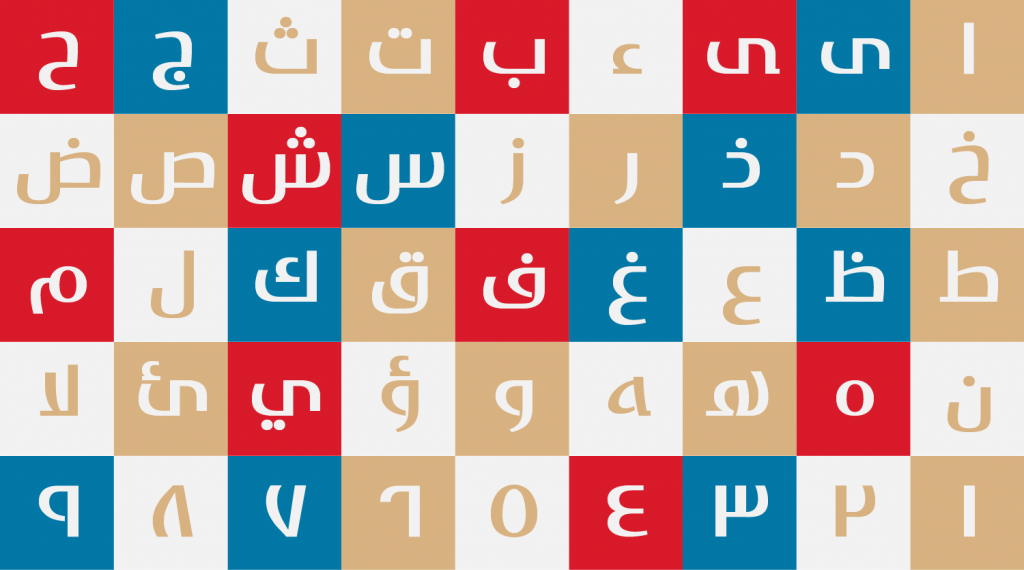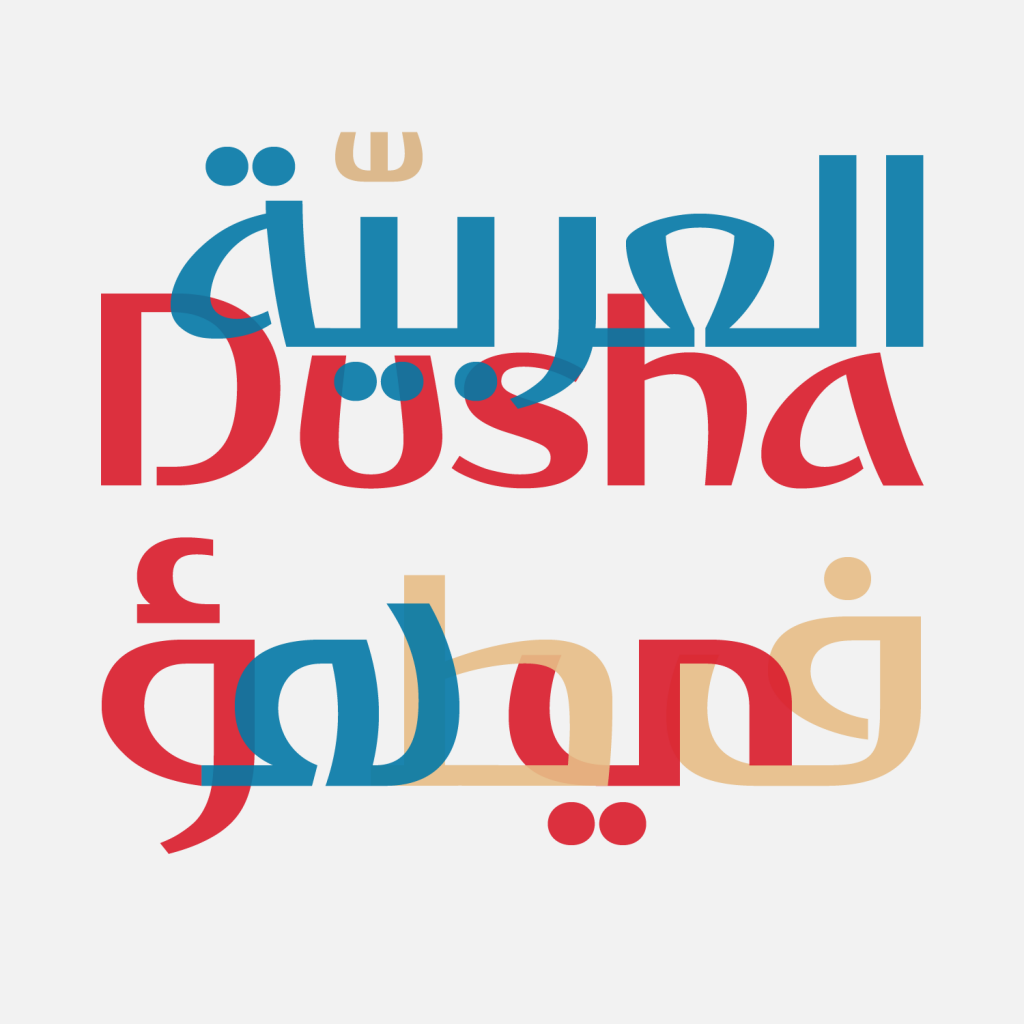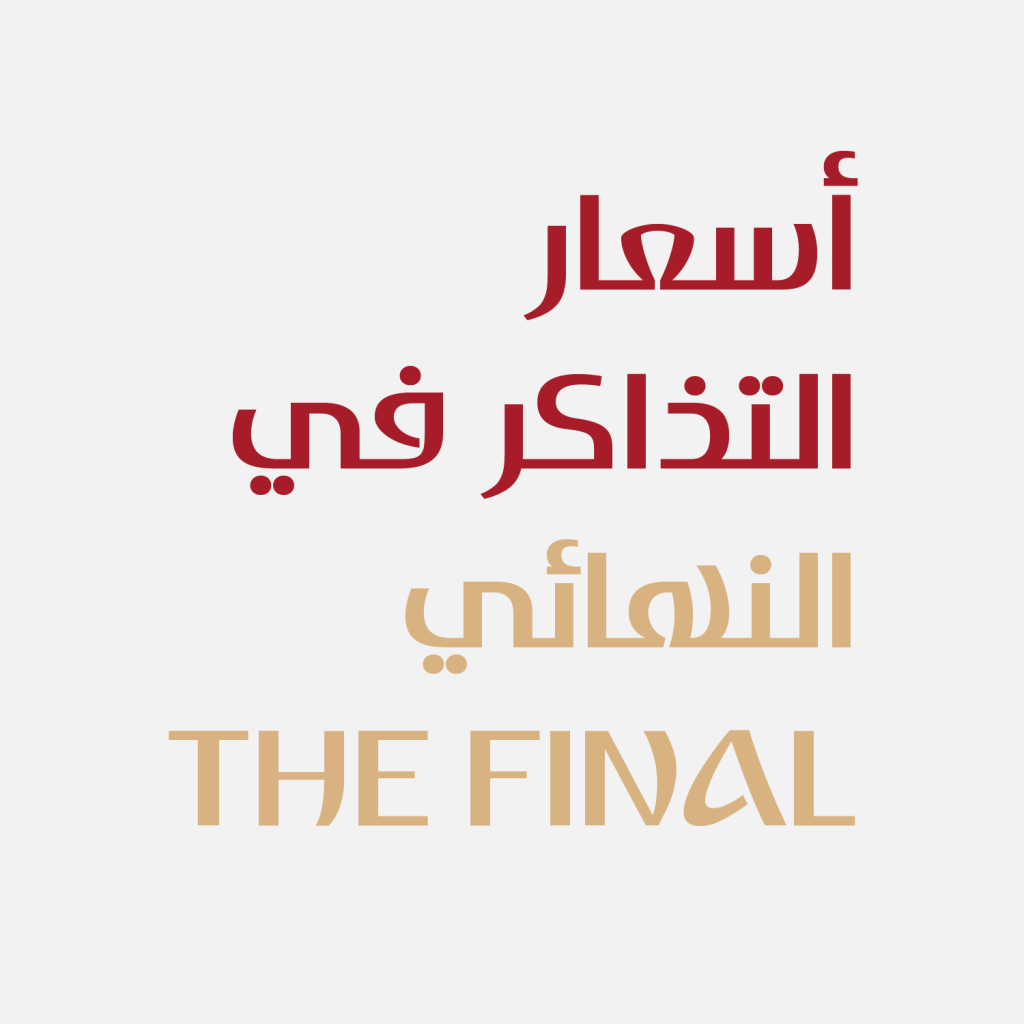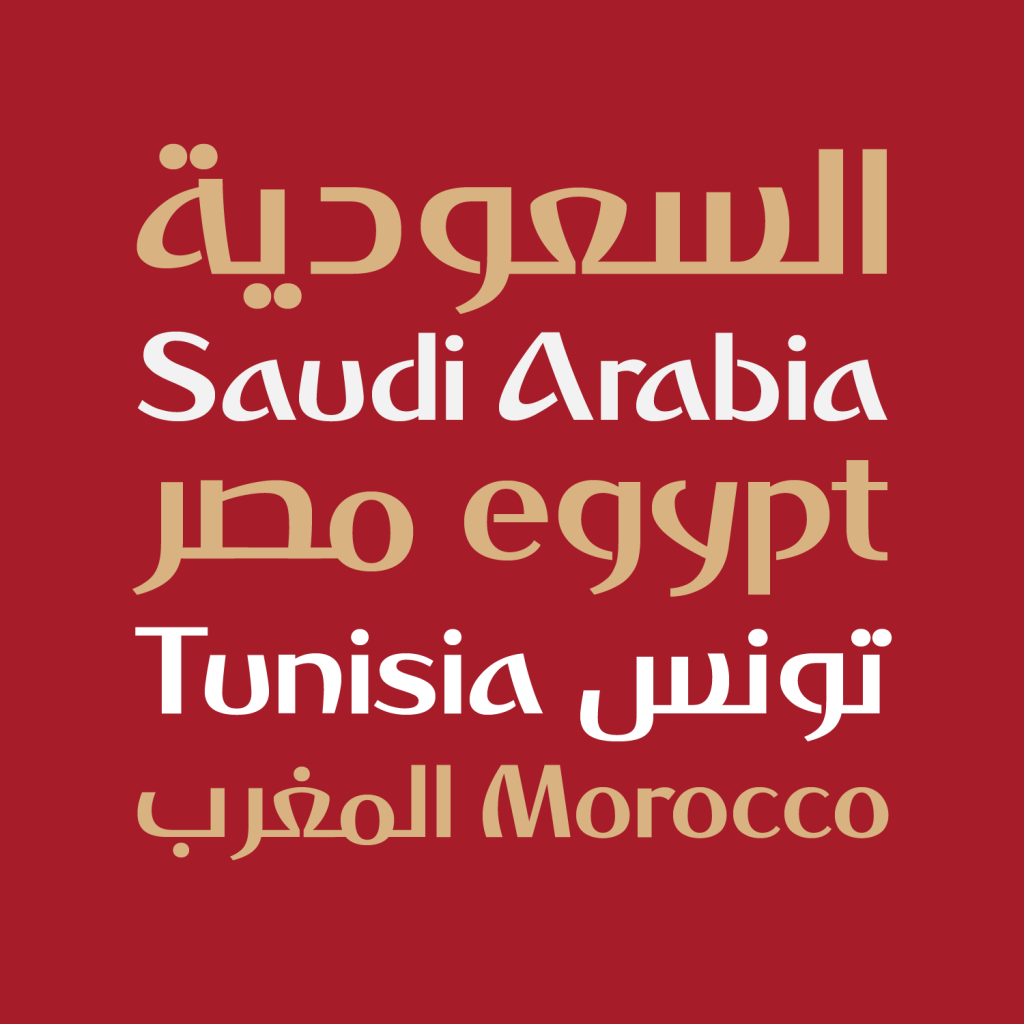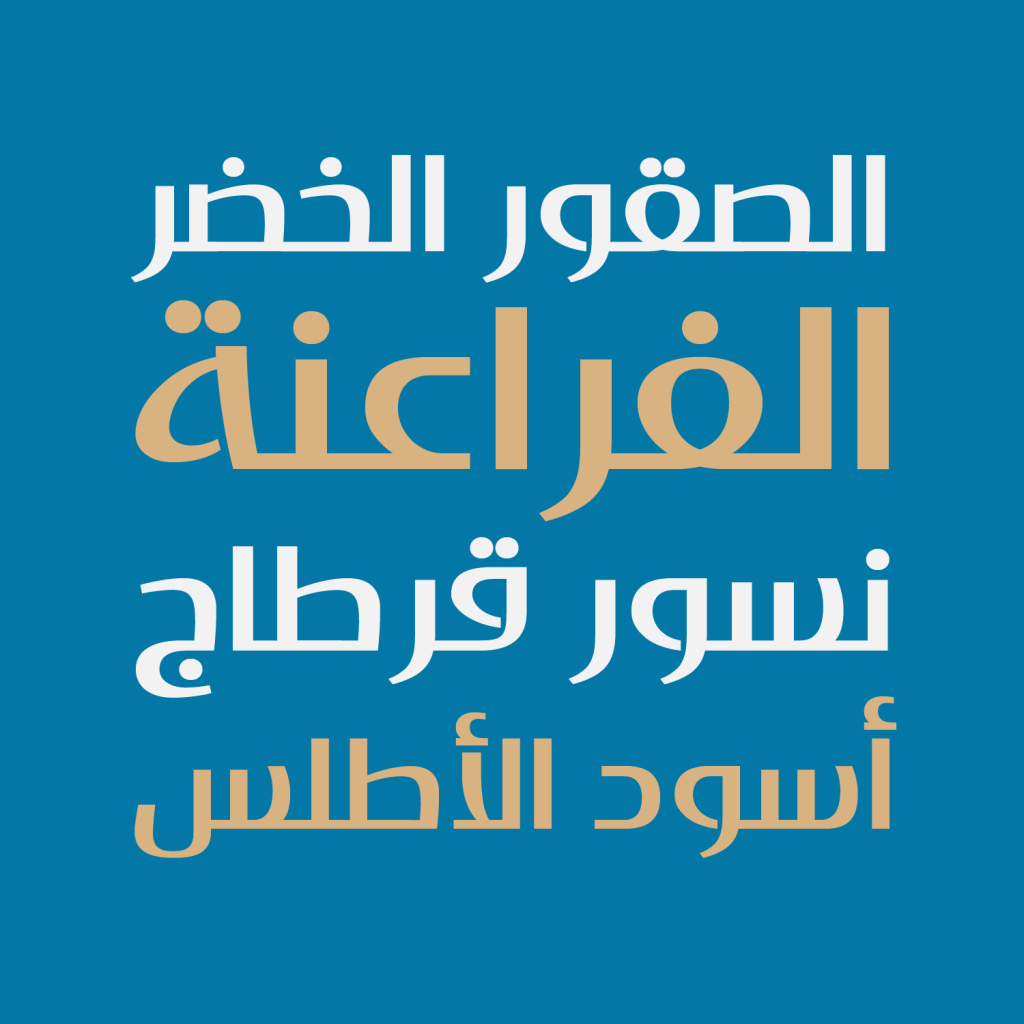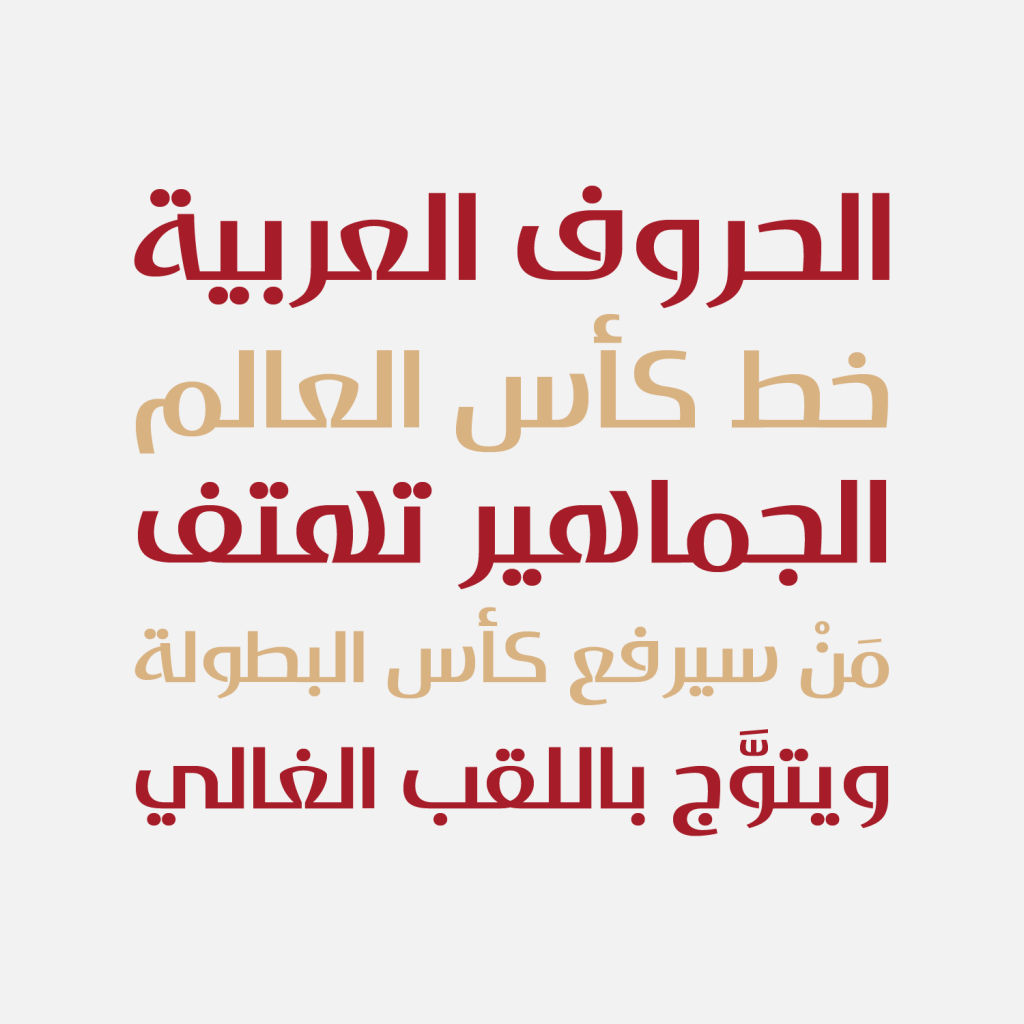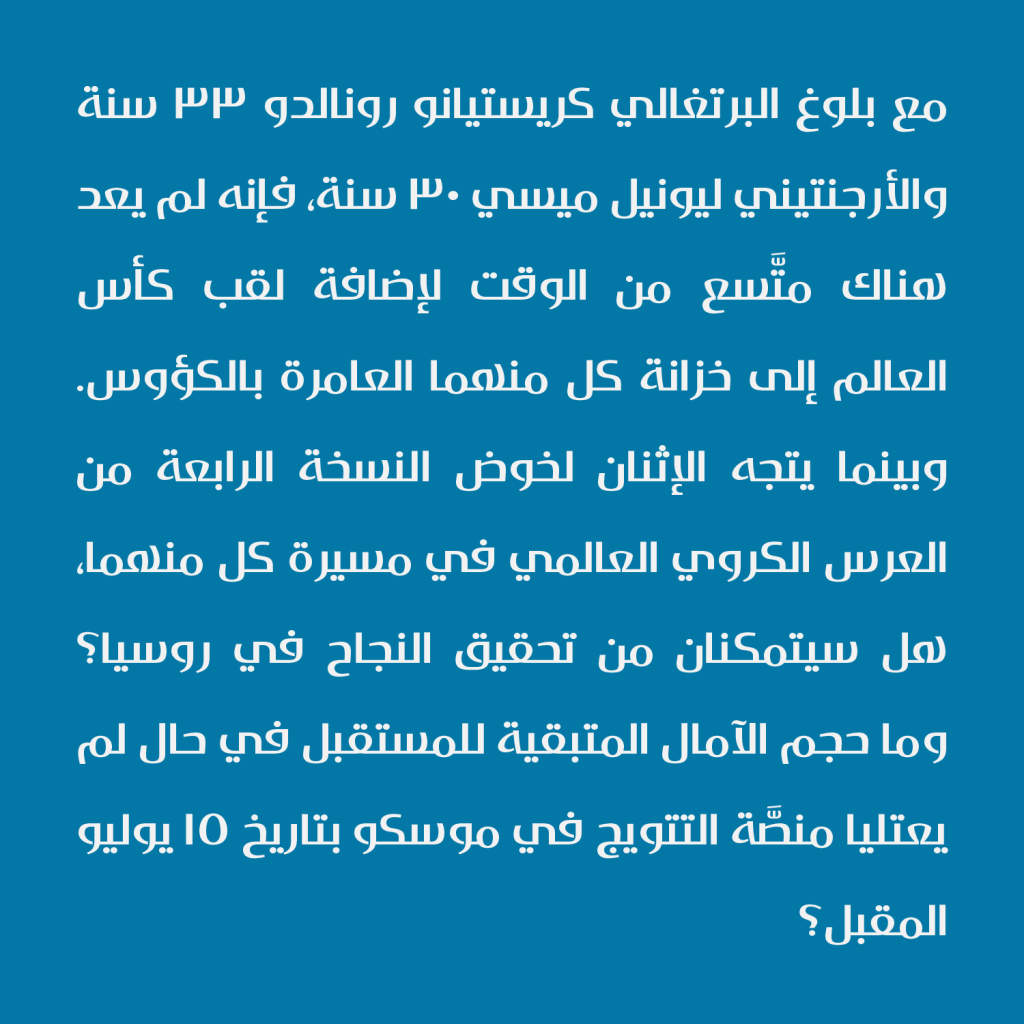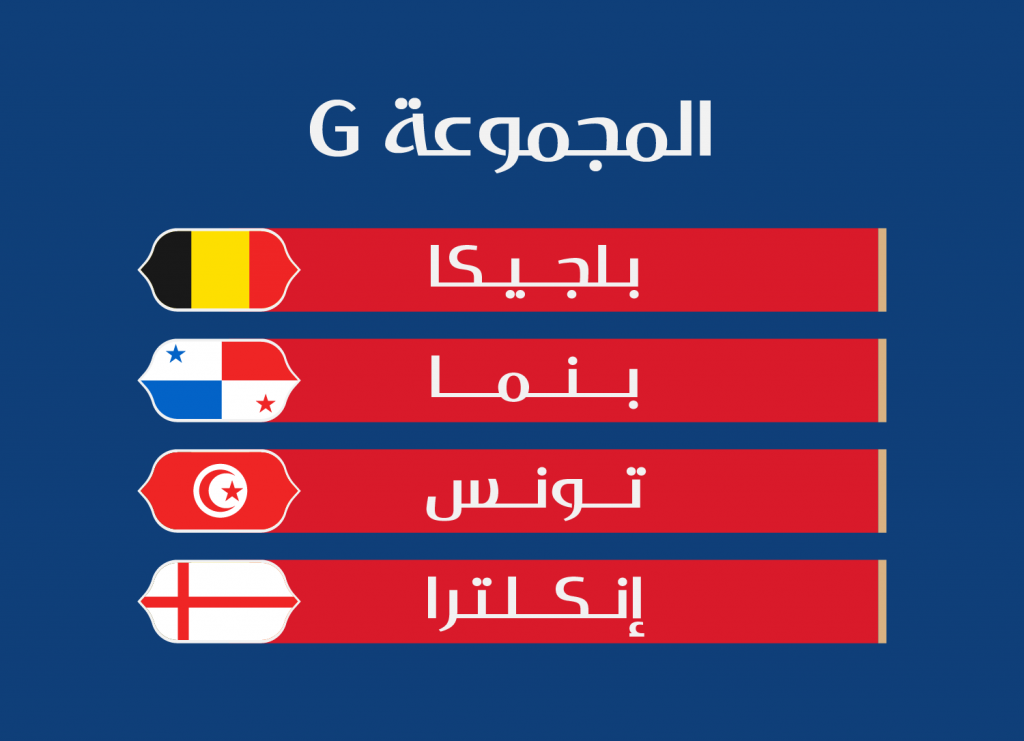
Dusha Arabic Typeface
Just for fun… I try to create the Arabic version of
Dusha Typeface
(
Dusha,
the typeface of
FIFA
World Cup 2018
created by
DSType Foundry
)
Dusha Arabic
font file only contains the basic Arabic characters & numbers.